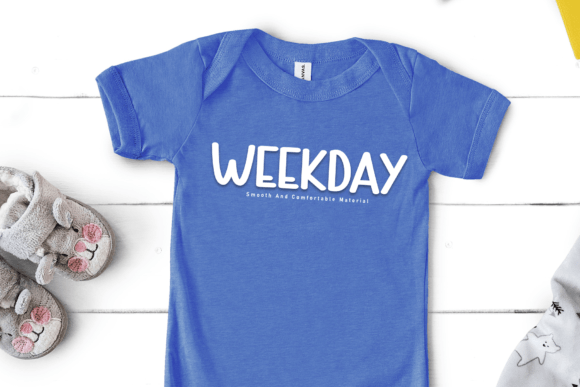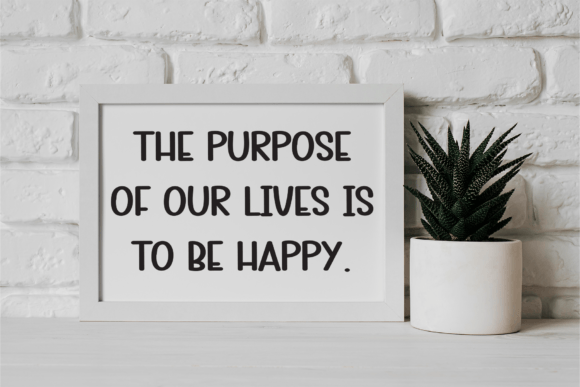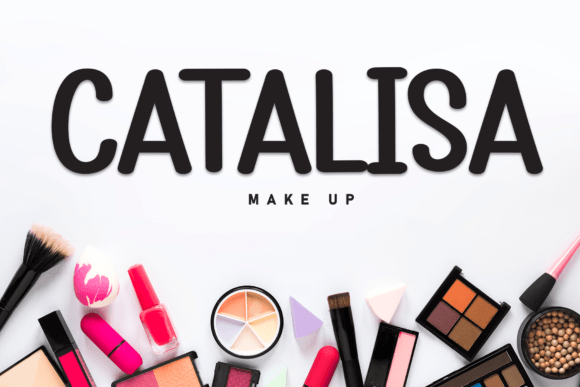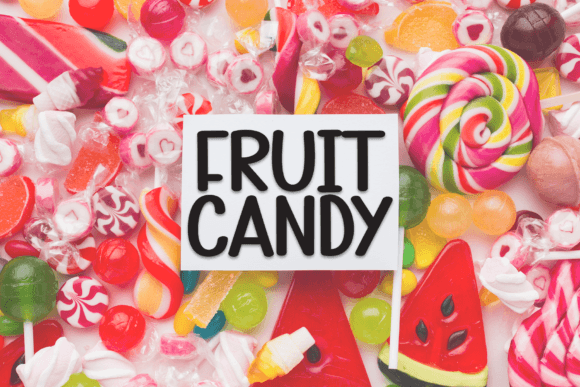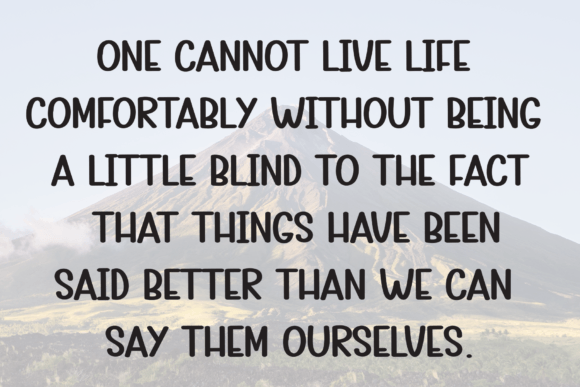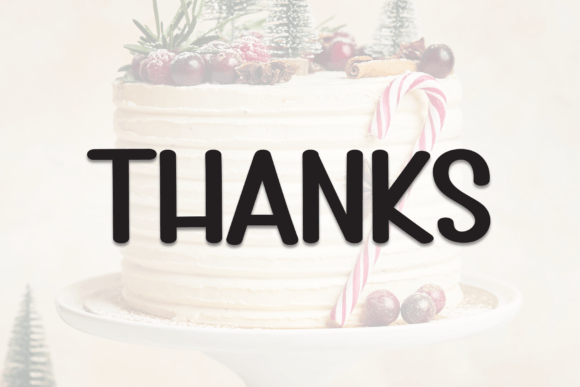
Introduction to Cake Christmas Font
Introducing a charming handwritten display typeface that radiates warmth and friendliness – perfect for crafting memorable moments.
This delightful font, with its cute, unique vibe is the ideal choice for transforming your wedding invitations, greeting cards, or other design projects into captivating pieces brimming with fun and whimsy With its playful touch, this darling font dressing your texts will make every word you write a joyful expression.
Key Features of Cake Christmas Font